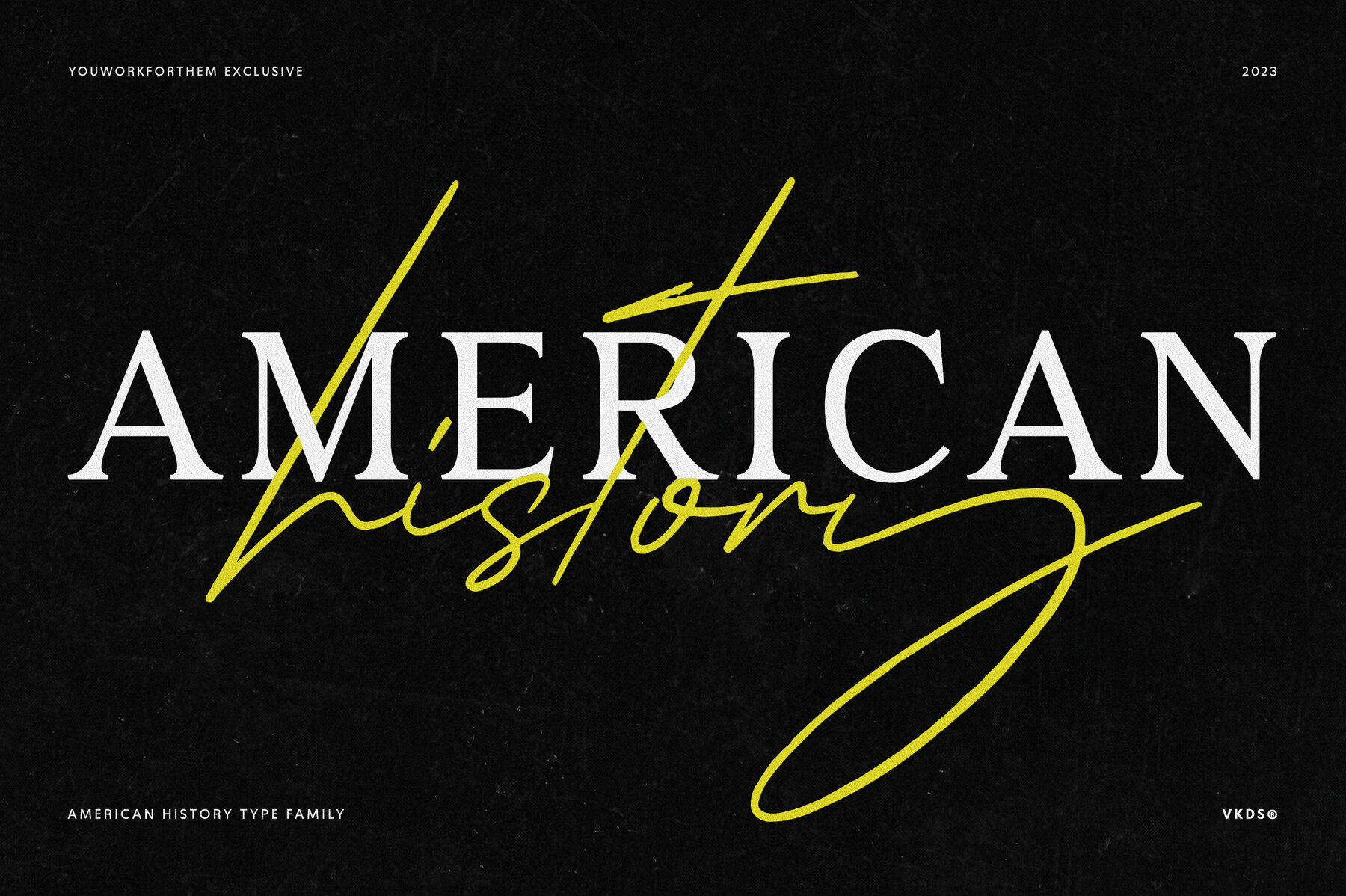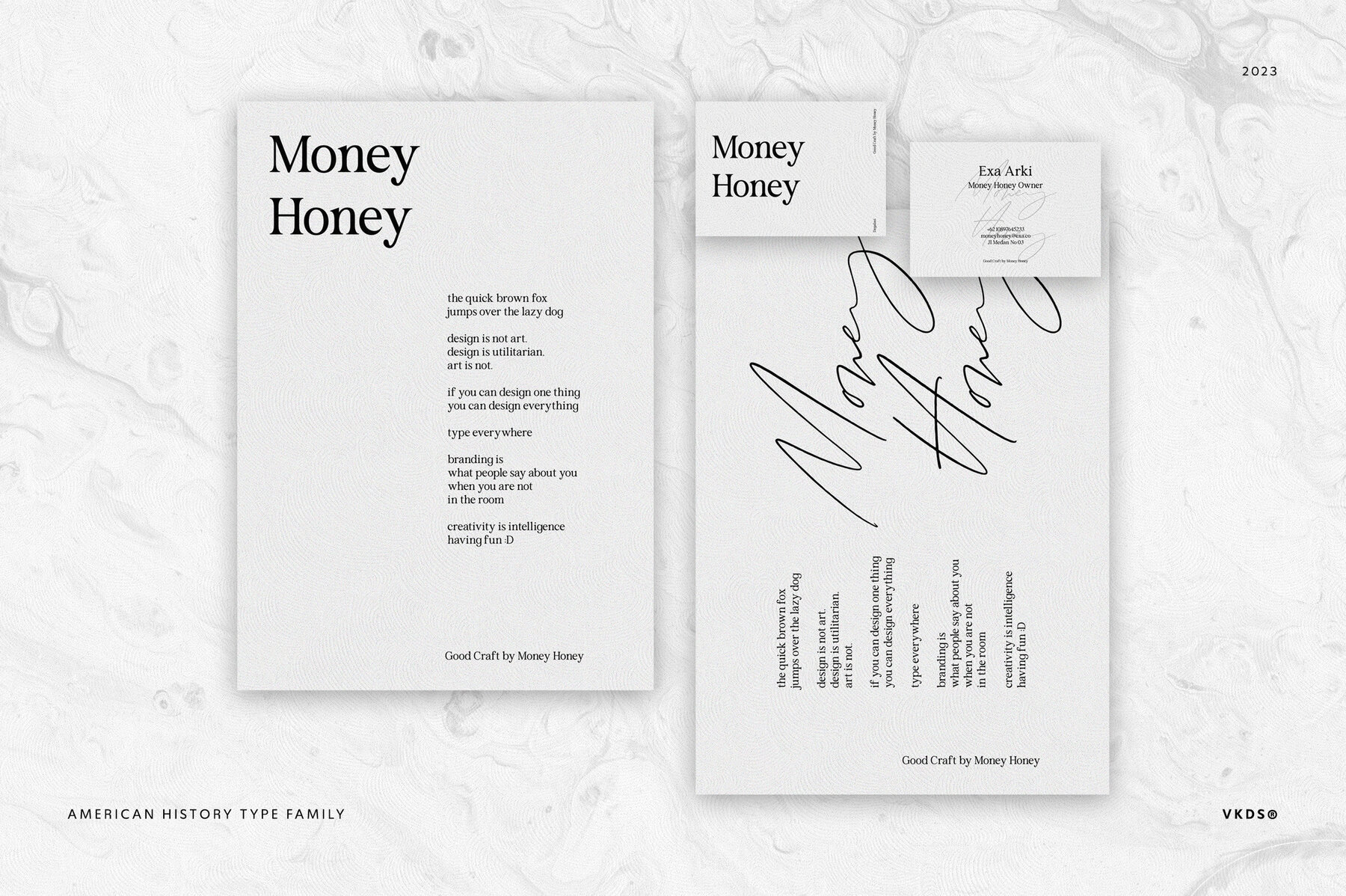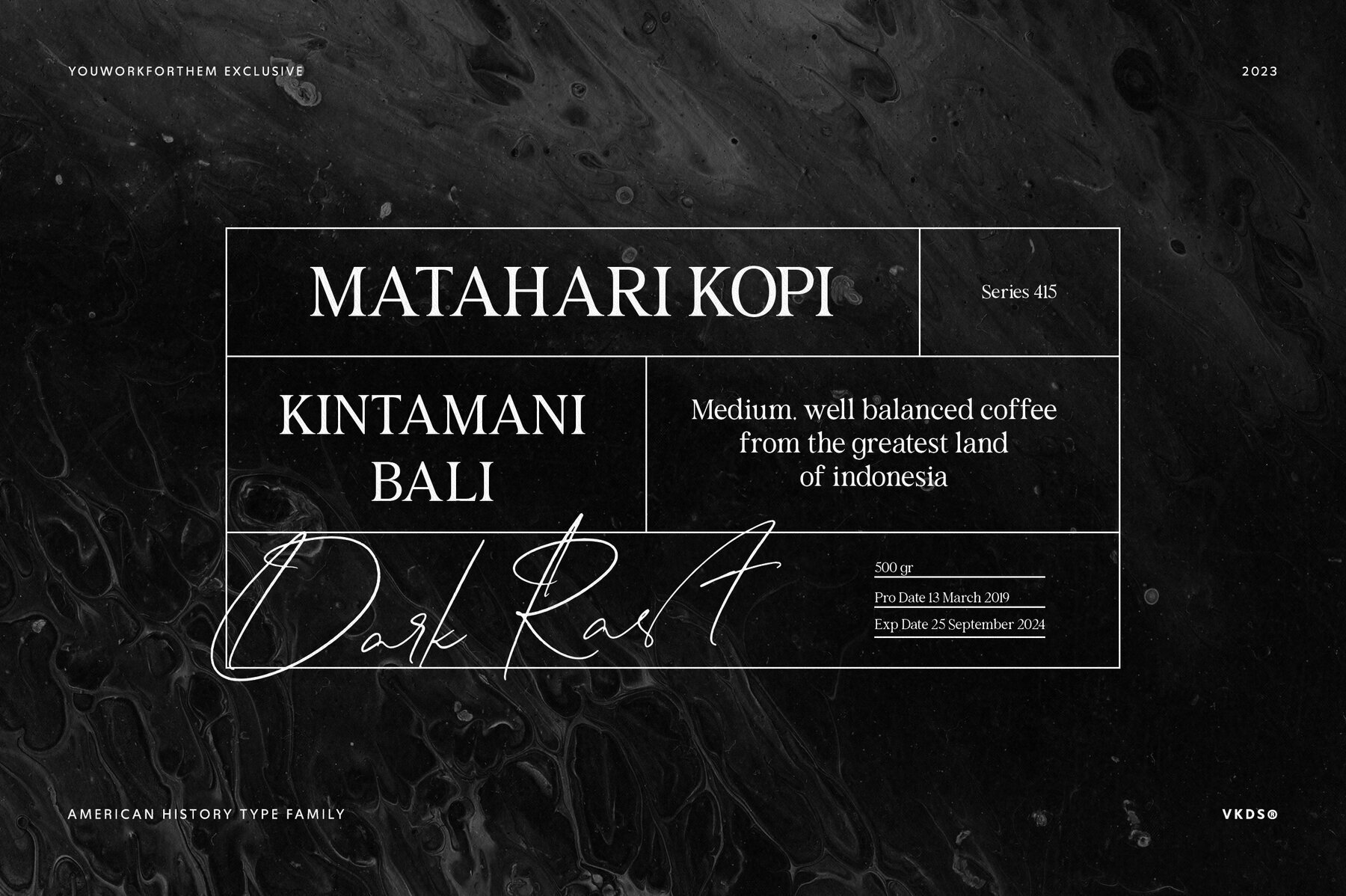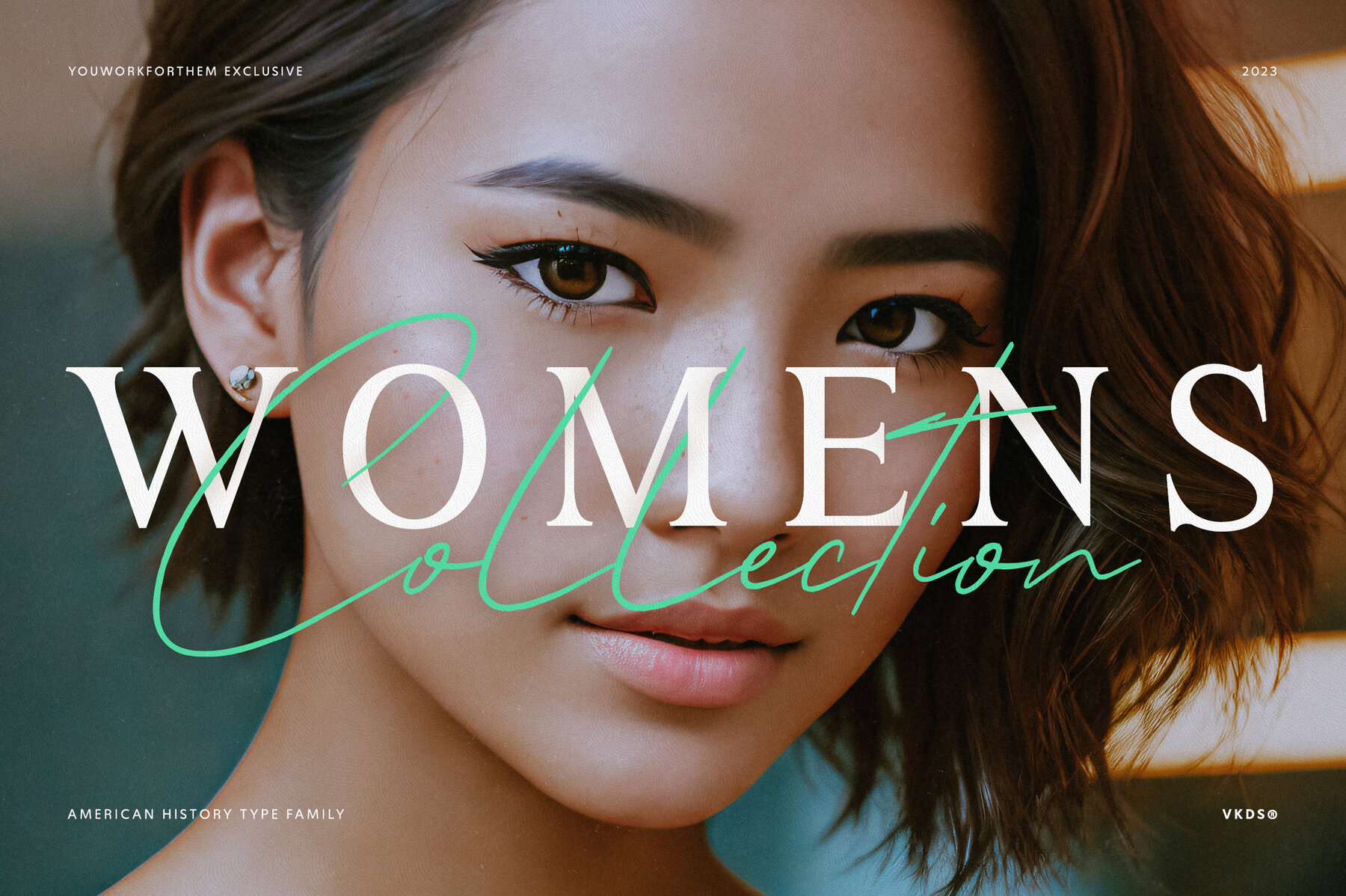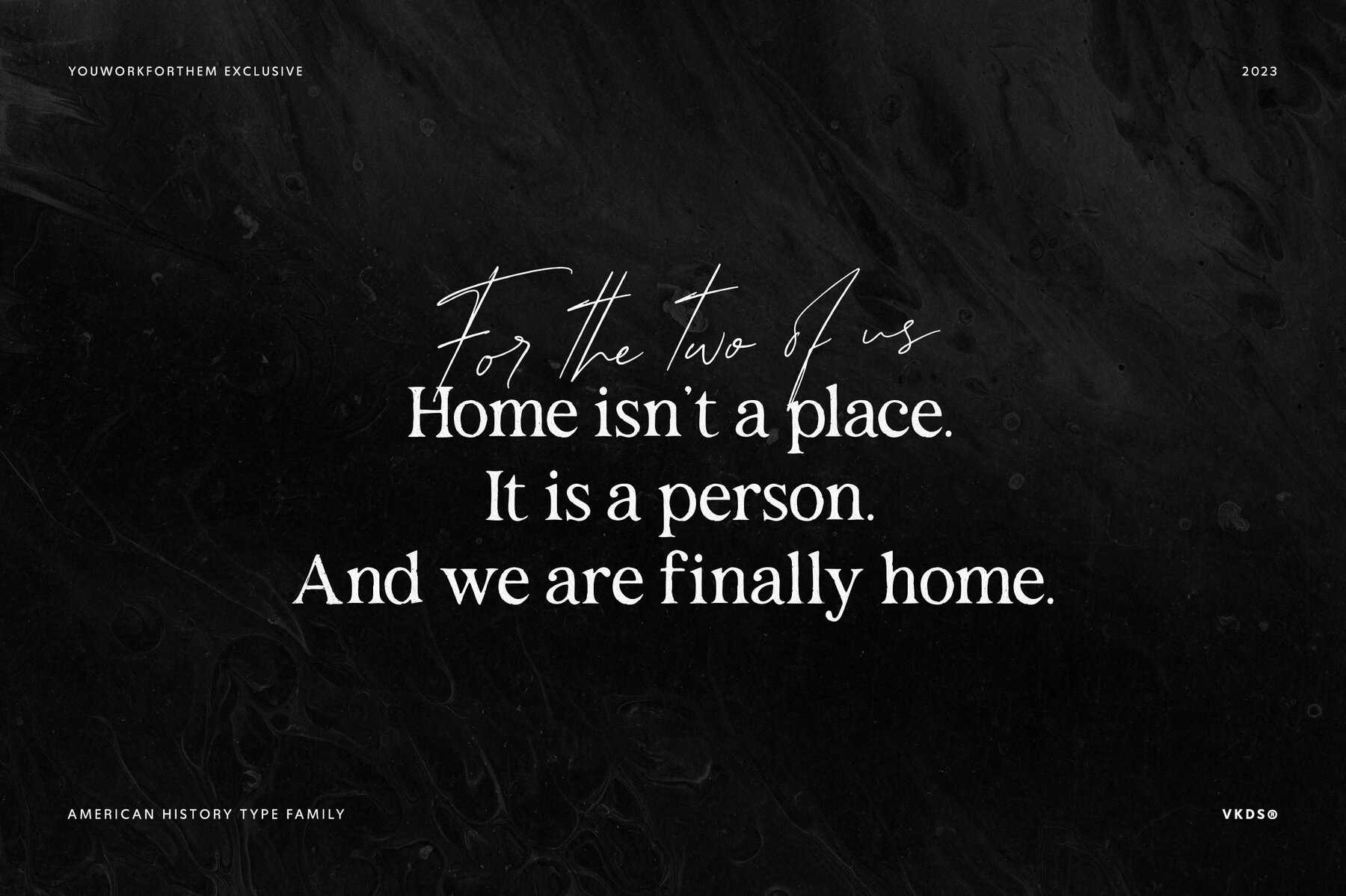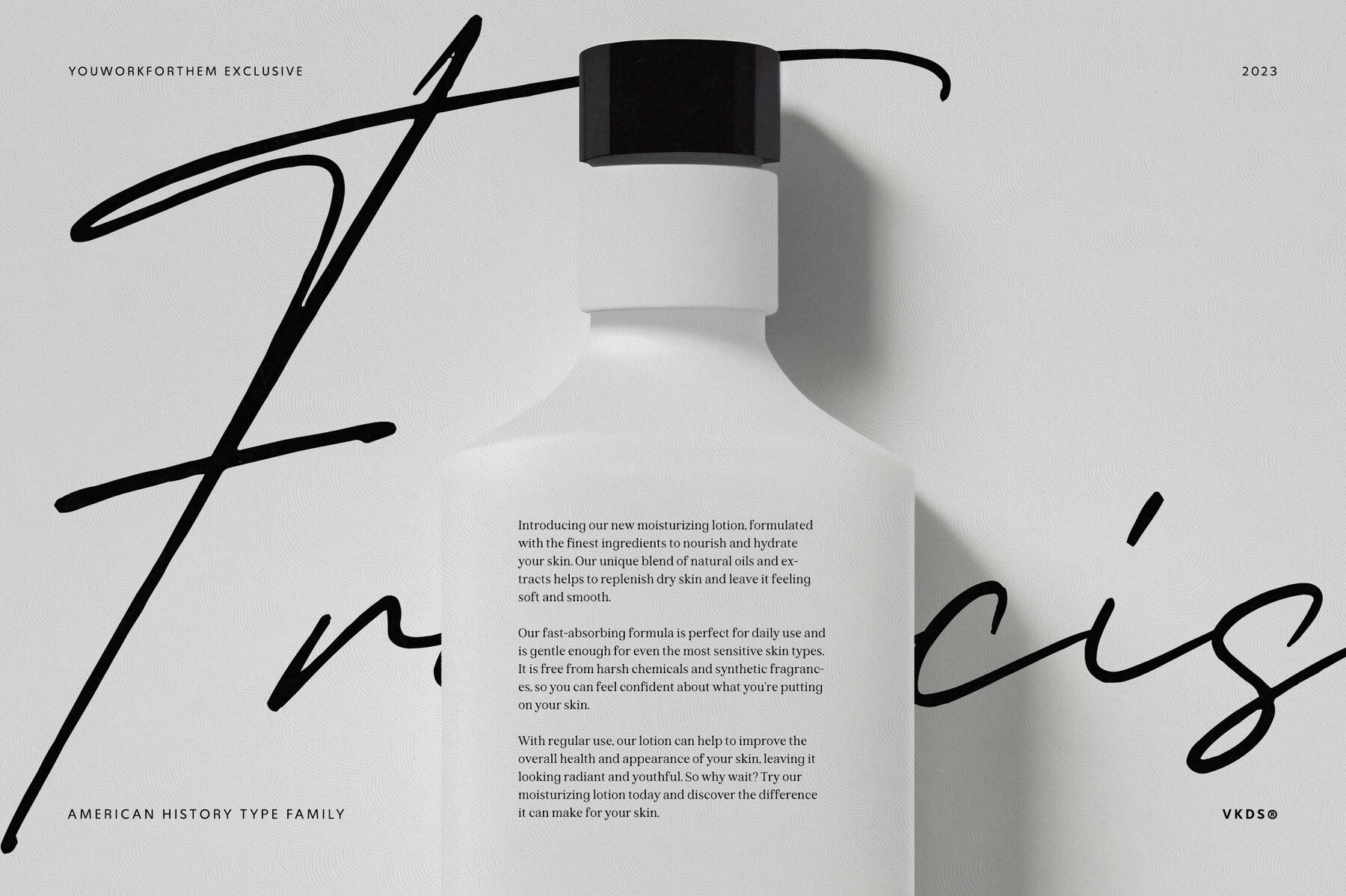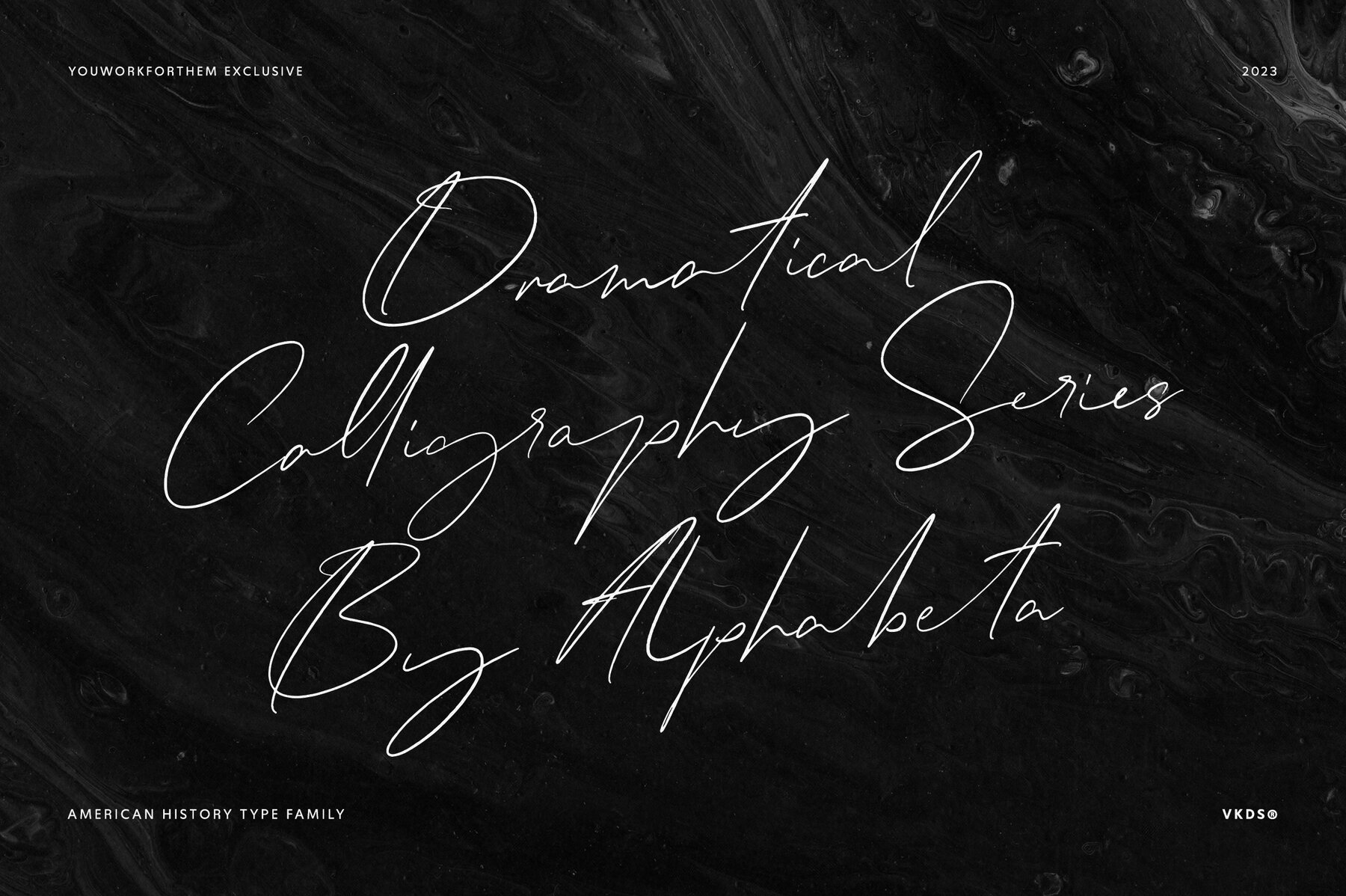
American History Font
American History
American History Alt
American History Serif
American History Serif Rough
Introducing American History, a font duo inspired by 1700-1800s American culture, offering a modern twist on classic serif font and handwriting font styles. Use them together for striking headlines or separately to add a historical touch. This font duo includes alternate versions for a distressed serif look and a different handwriting style. With a vast glyph set and OpenType alternates, the design possibilities are endless.